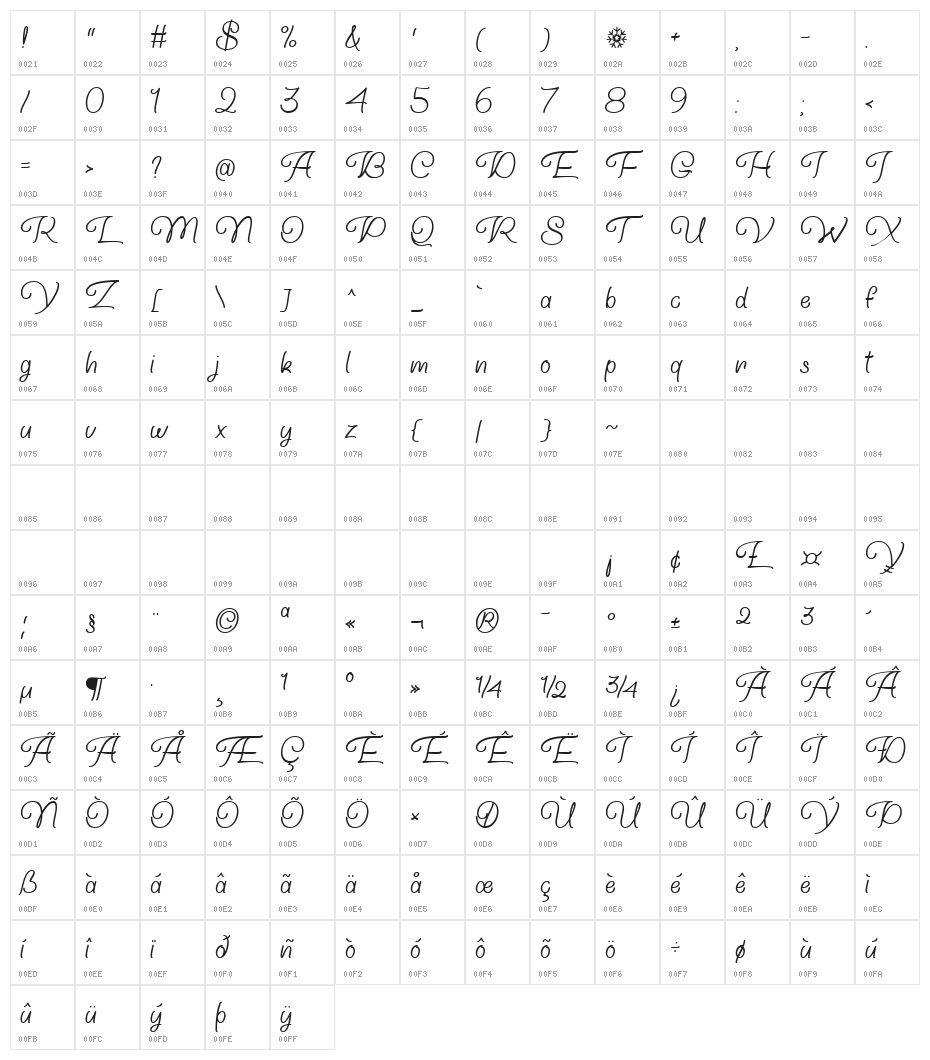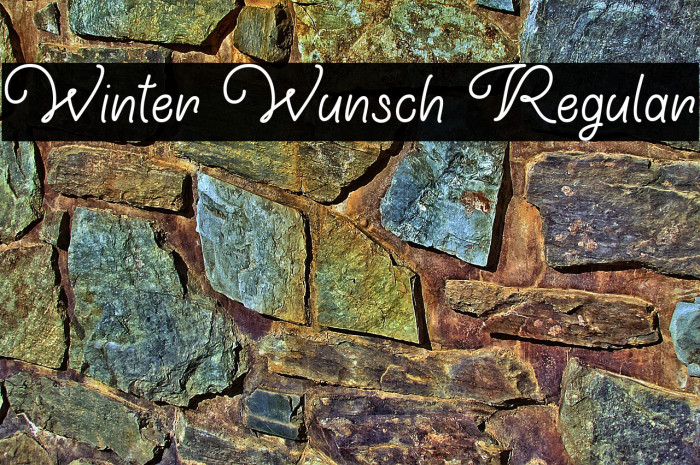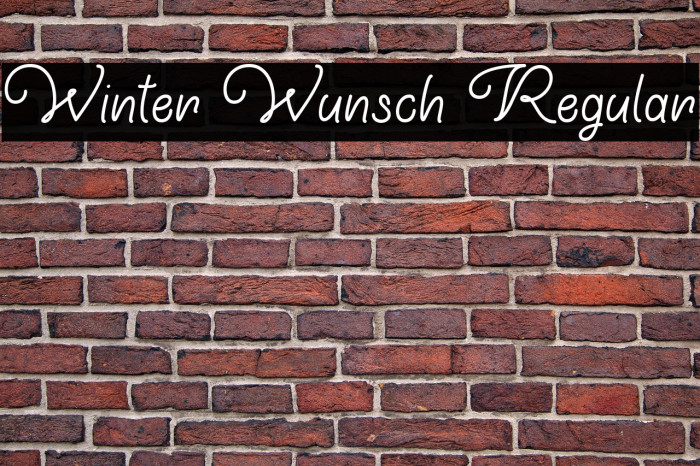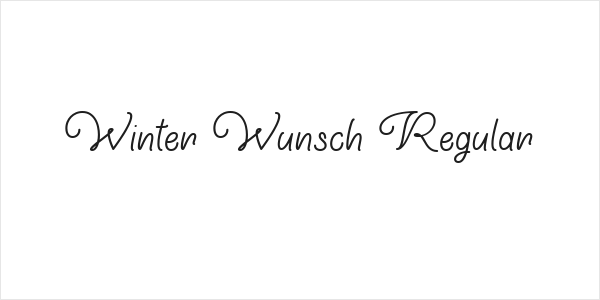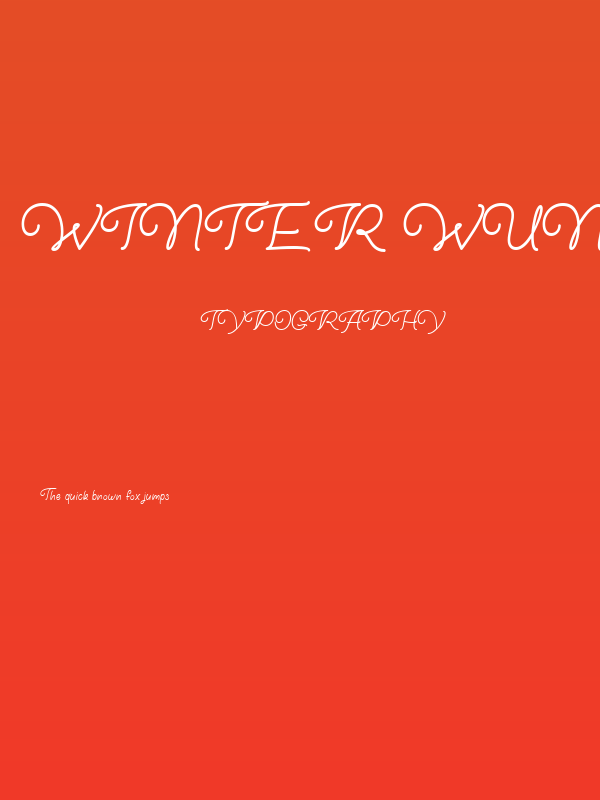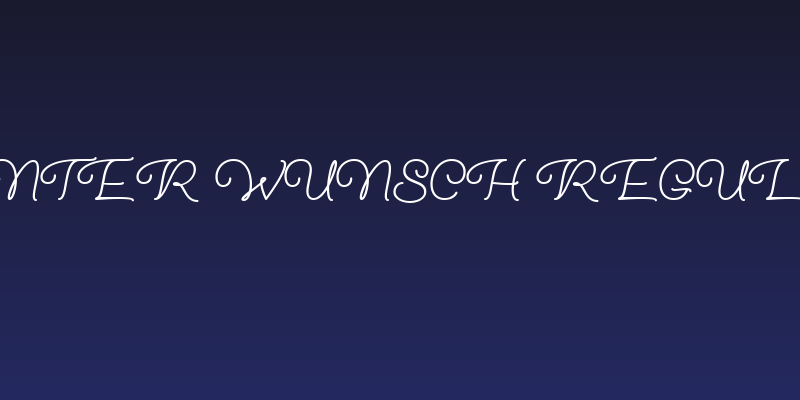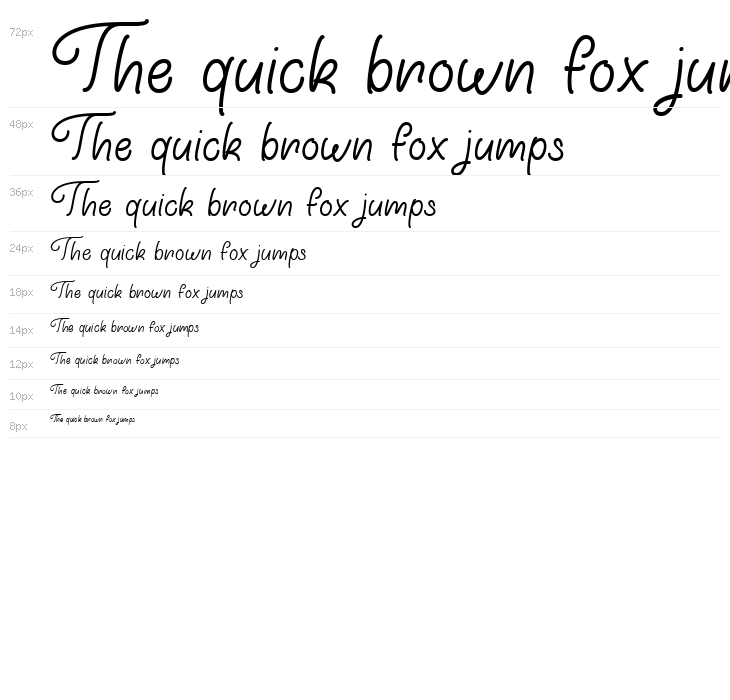
Winter Wunsch Regular Font
Winter Wunsch Regular Description
This font features an elegant and flowing script style, characterized by its smooth, cursive lines and a sense of fluidity. The uppercase letters are ornate, with intricate loops and swirls that add a touch of sophistication. The lowercase letters maintain a consistent flow, enhancing readability while retaining a decorative flair. The numerals are well-balanced, matching the overall style with their curvilinear forms. Special characters are thoughtfully designed, complementing the font's aesthetic with unique embellishments. This font exudes a sense of grace and charm, making it suitable for formal and creative applications.